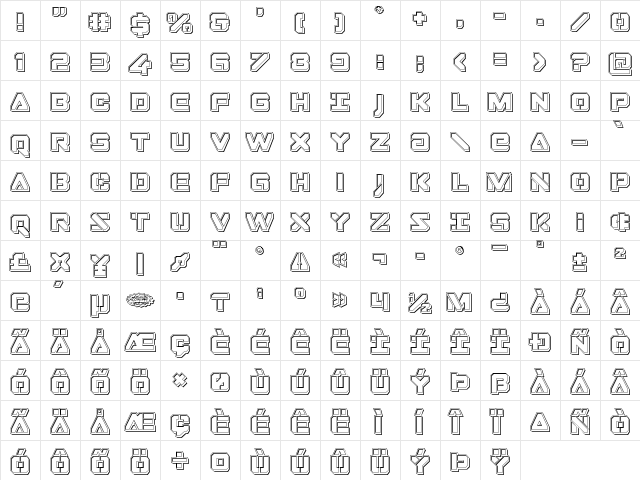
Domino Jack Engraved Regular
Design Context for Domino Jack Engraved Typeface
Domino Jack Engraved brings ornamental detail and strong personality to headlines and identities, where visual impact matters more than quiet functionality.
Font Pairing: Pair with a clean neutral sans-serif for body copy to let Domino Jack Engraved's character lead without overwhelming the composition.
Pro Tip: Use Domino Jack Engraved exclusively at display sizes — it was designed to be seen, not read at length. Let a neutral companion handle body copy.